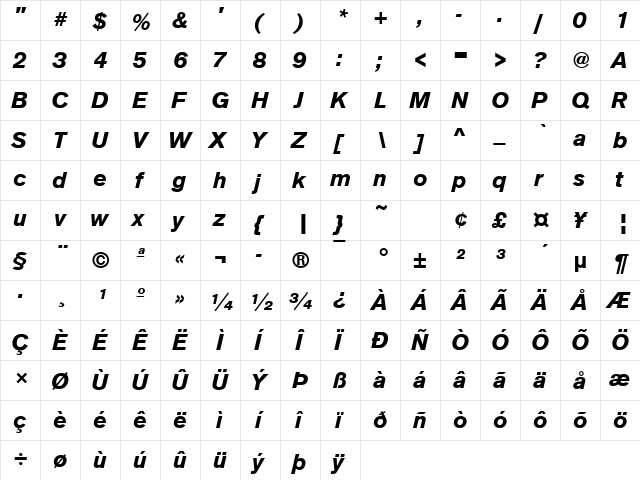
URWAccidaliaT Bold Italic Font Preview
Design Context for URWAccidaliaT Typeface
URWAccidaliaT offers clean, dependable letterforms without strong stylistic allegiance, making it a practical choice for designers who need flexibility. Its italic angle brings a sense of urgency and motion to the letterforms. The heavy weight commands attention and anchors typographic hierarchies.